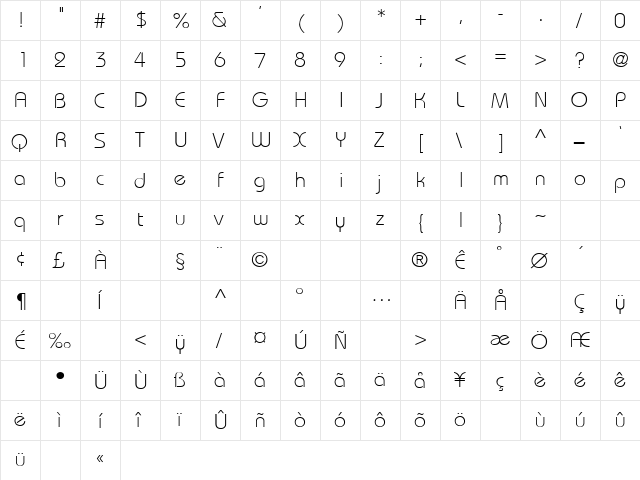
BauhausLightLight Regular
Design Context for BauhausLightLight Typeface
BauhausLightLight is a composed and adaptable typeface that performs quietly and consistently across a wide range of design contexts. The delicate stroke weight brings airiness and refinement to layouts.